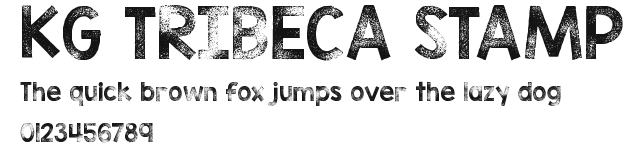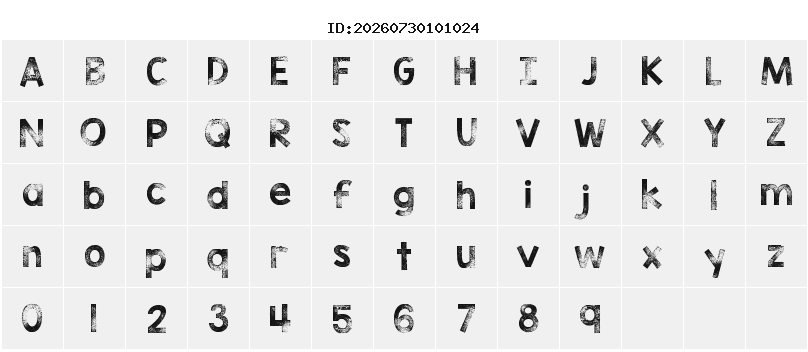
KG TRIBECA STAMP Preview
• Font Name: KG TRIBECA STAMP
• Font ID: KimberlyGeswein: KG TRIBECA STAMP: 2014
• Full Font Name: KG TRIBECA STAMP
• Version: Version 1.000 2014 initial release
• PostScript Name: KGTRIBECASTAMP
• Character Count: 347
• Designer: Kimberly Geswein
• Manufacturer: Kimberly Geswein
About KG TRIBECA STAMP.ttf
KG TRIBECA STAMP.ttf is a modern, elegant sans-serif font designed for ultimate readability and visual harmony. Perfect for branding, headlines, web design, and print materials.